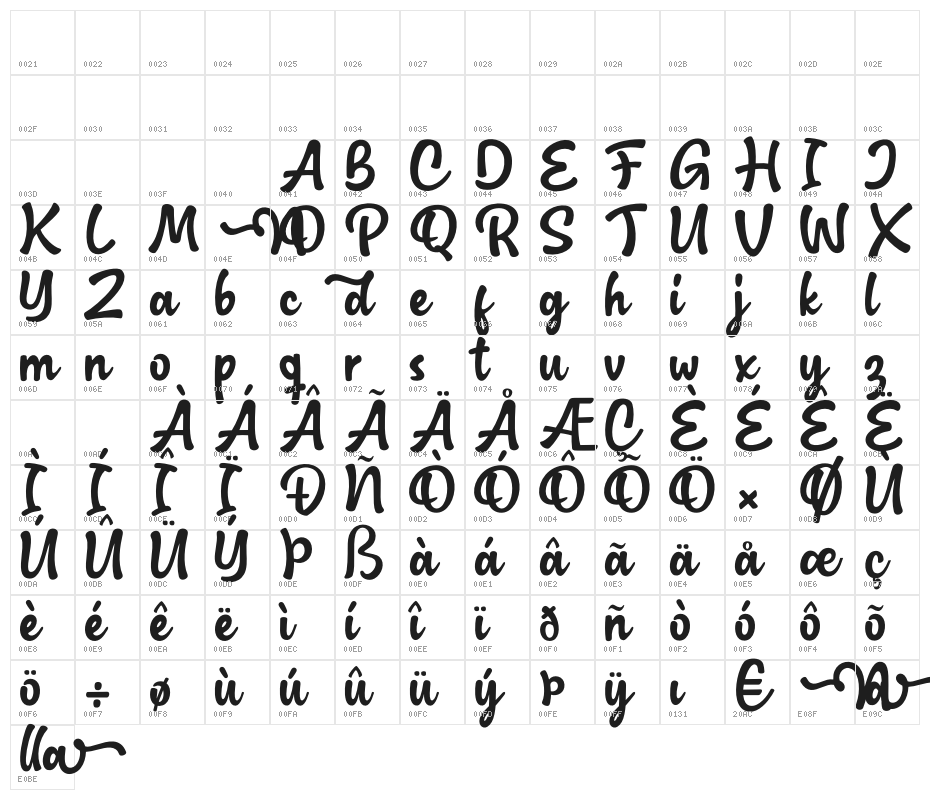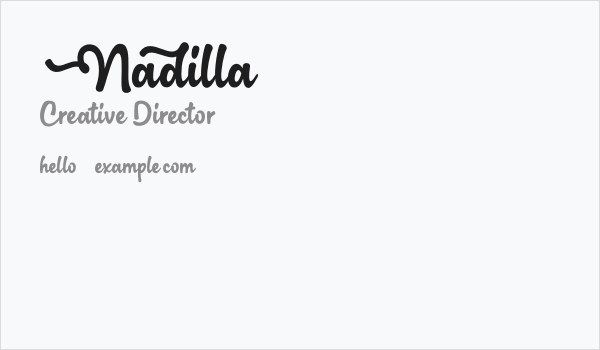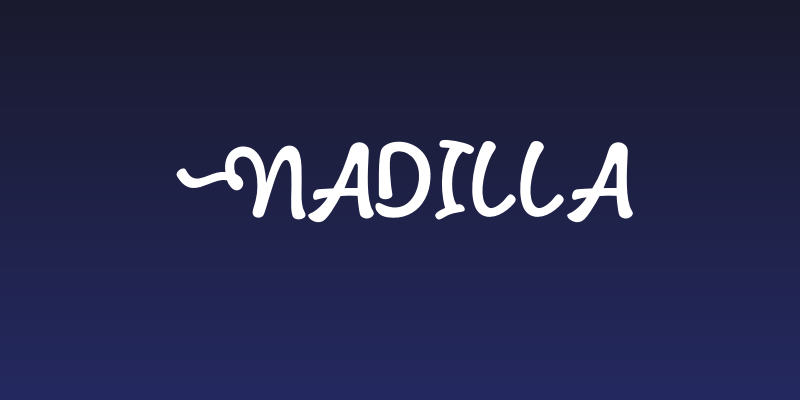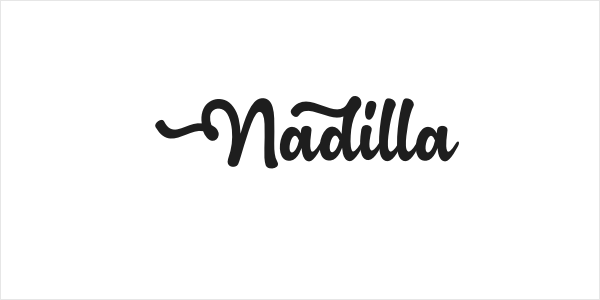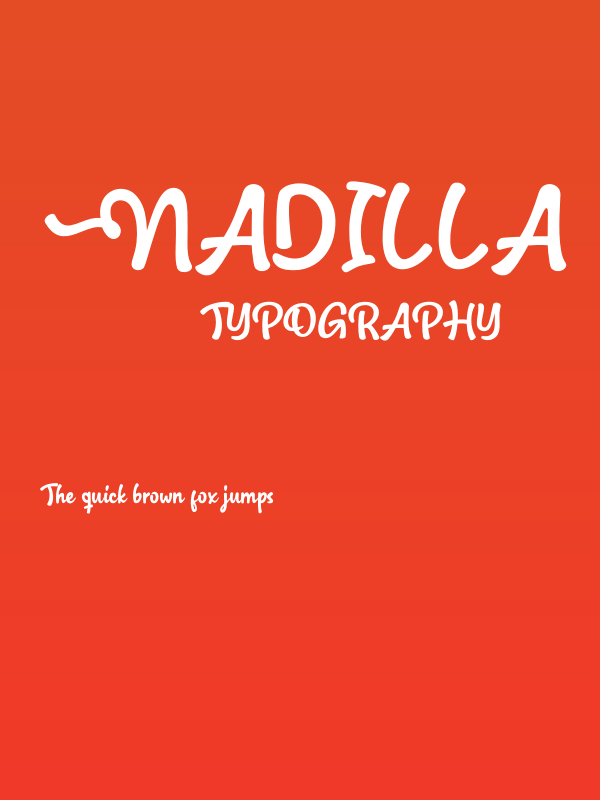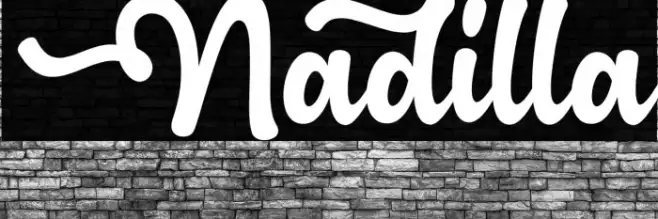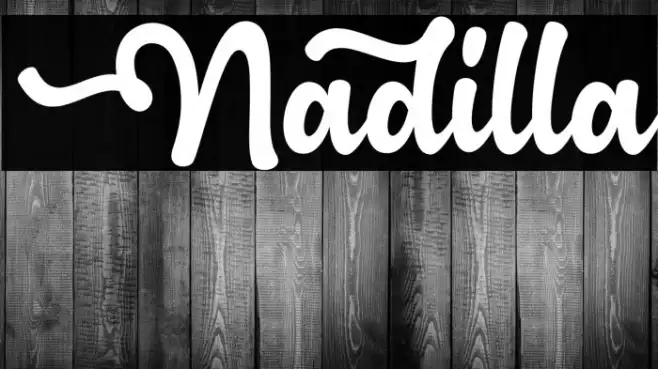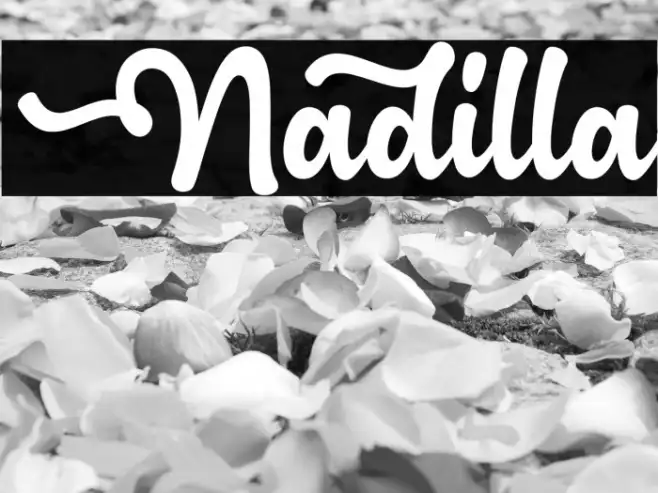
Nadilla Font
Nadilla Description
This font features a playful and bold script style with a handwritten appearance. The letters are connected, giving it a fluid and dynamic look. The uppercase characters are slightly more structured, while the lowercase letters exhibit a more casual and flowing style. The strokes are thick and consistent, providing a strong visual impact. The font includes a full set of uppercase and lowercase letters, numerals, and a selection of special characters, making it versatile for various design needs. Its boldness and unique style make it suitable for eye-catching designs.
| Proposed Projects | Ideal for branding, logos, greeting cards, invitations, and social media graphics. |